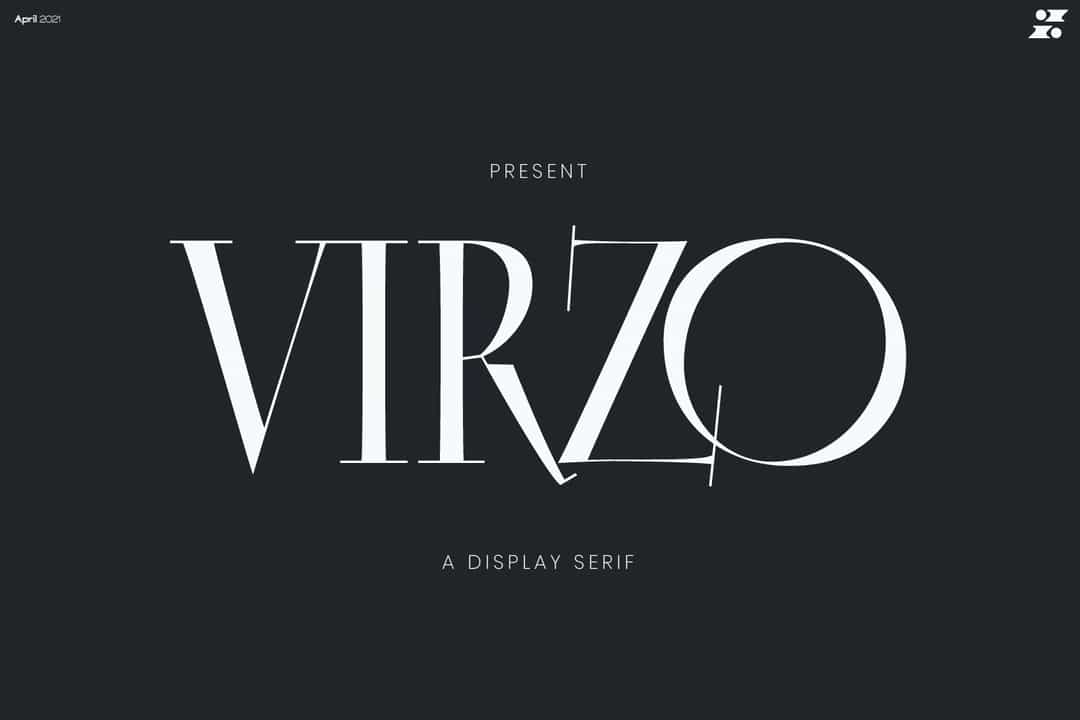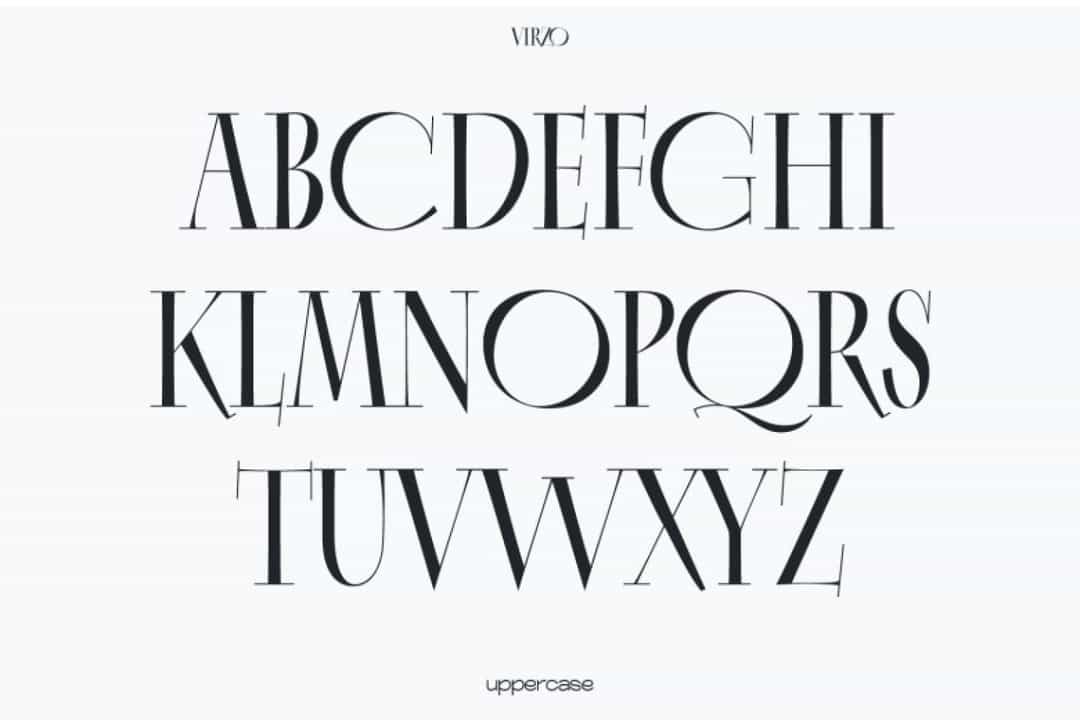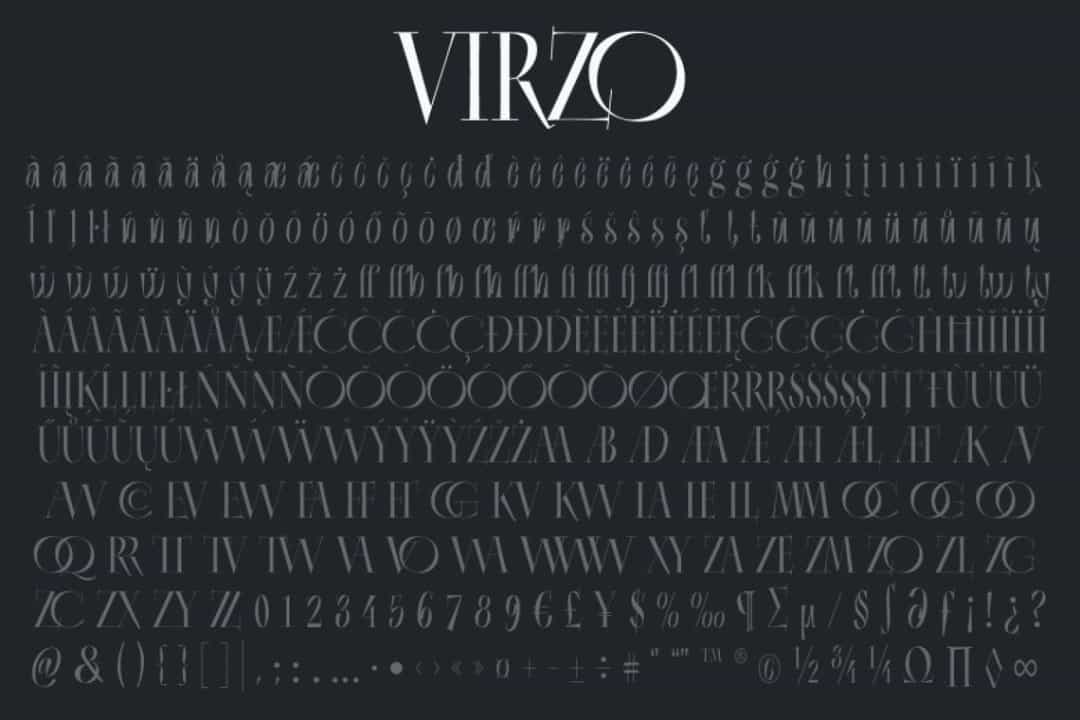
Virzo is an elegant thin, tall and contemporary show serif font designed to meet the demands of those seeking a sophisticated yet appealing and contemporary design.